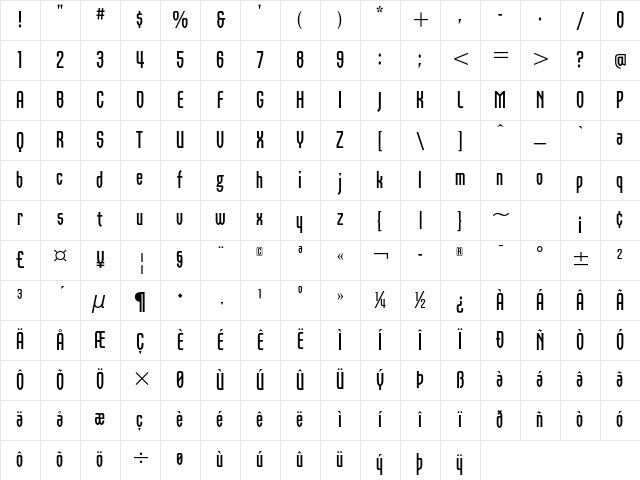
Orbon ITC Std Bold
Designer: James Montalbano
Design Context for Orbon ITC Std
Orbon ITC Std is a composed and adaptable typeface that performs quietly and consistently across a wide range of design contexts. Its bold stroke weight gives it real presence on the page.